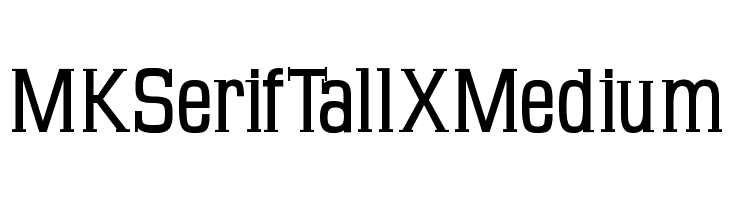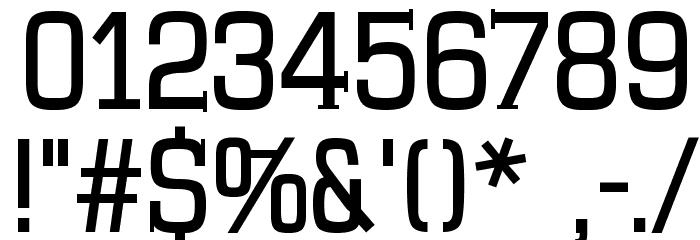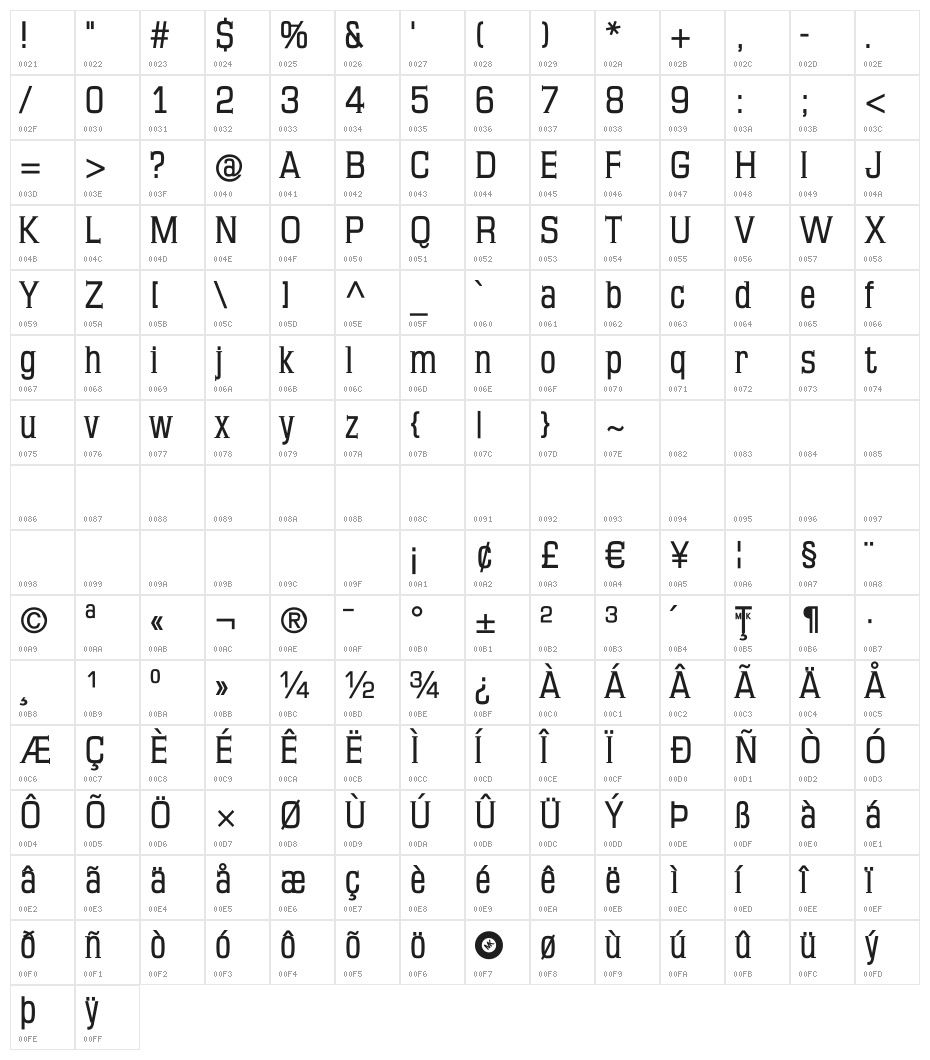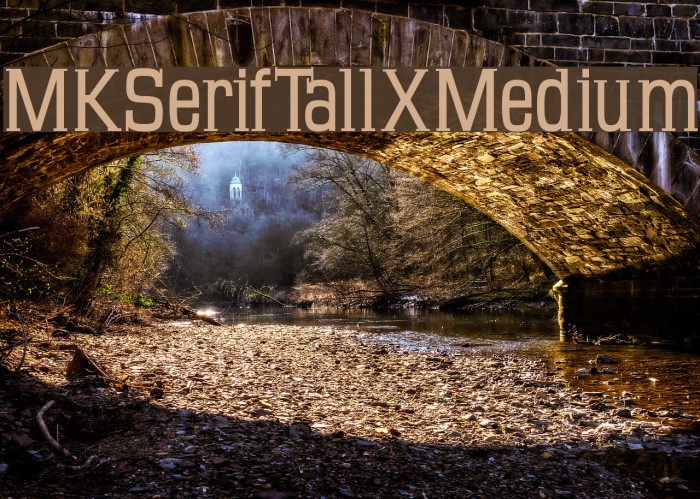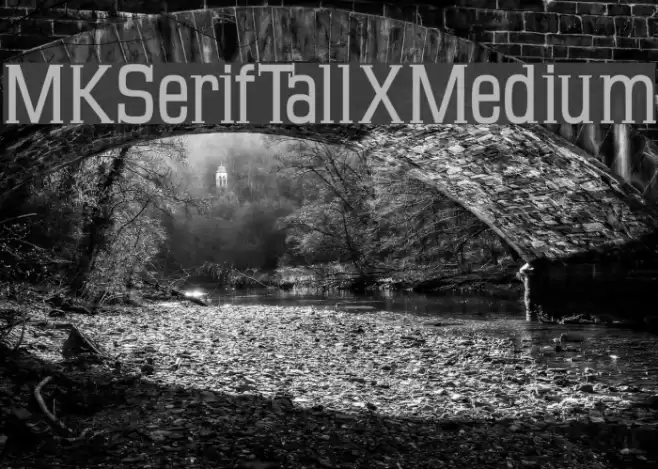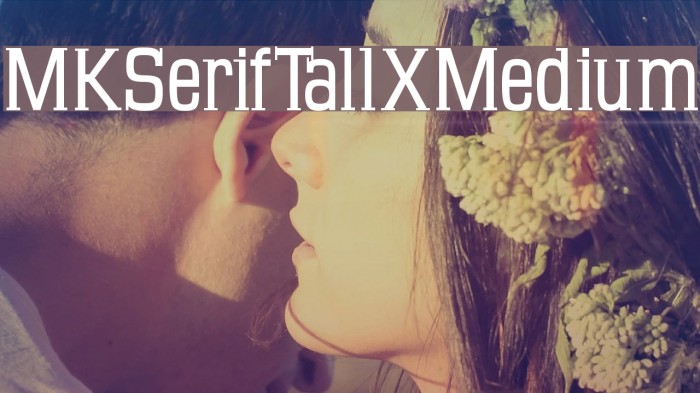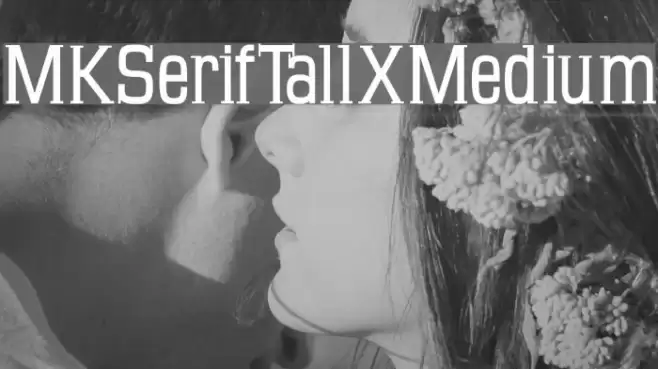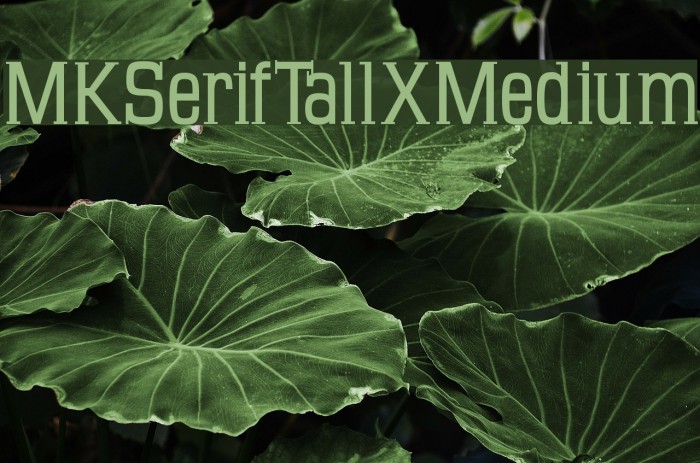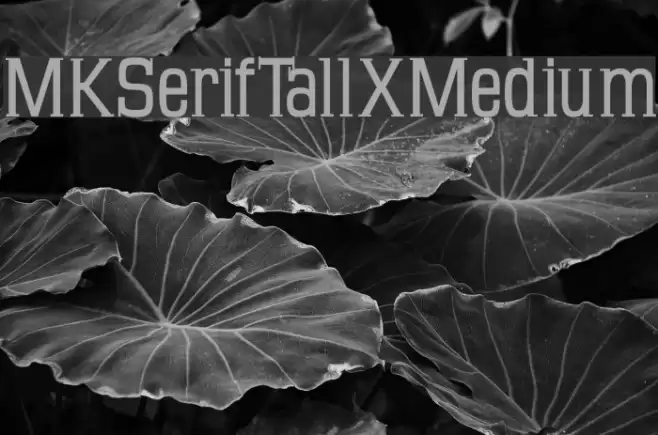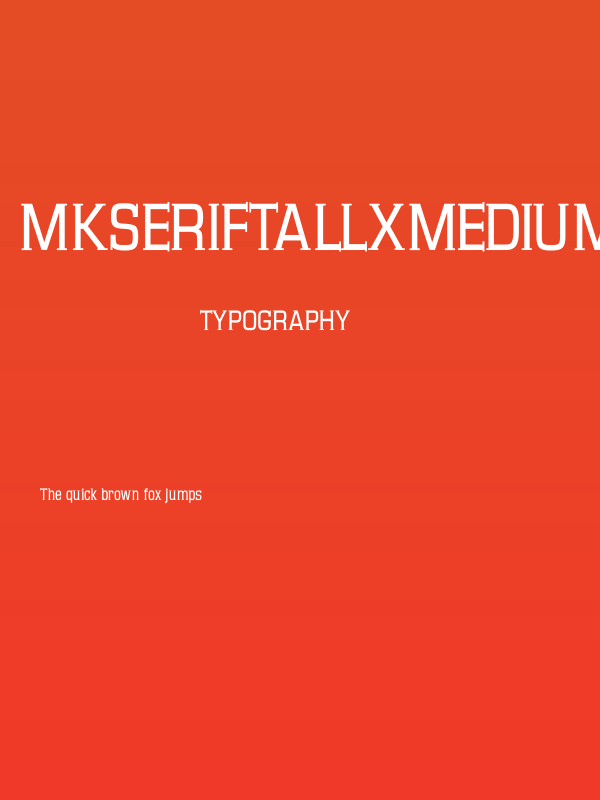
MKSerifTallXMedium Font
MKSerifTallXMedium Description
This font features a tall, elegant serif style with a medium weight, providing a balanced and sophisticated appearance. The characters are well-proportioned, with a slight emphasis on verticality, giving them a refined and modern look. The serifs are subtle yet distinct, adding a touch of classic elegance without overpowering the overall design. The uppercase letters are bold and commanding, while the lowercase letters maintain a consistent flow, enhancing readability. Numerals are clear and straightforward, making them suitable for various applications. Special characters are well-integrated, maintaining the font's cohesive style.